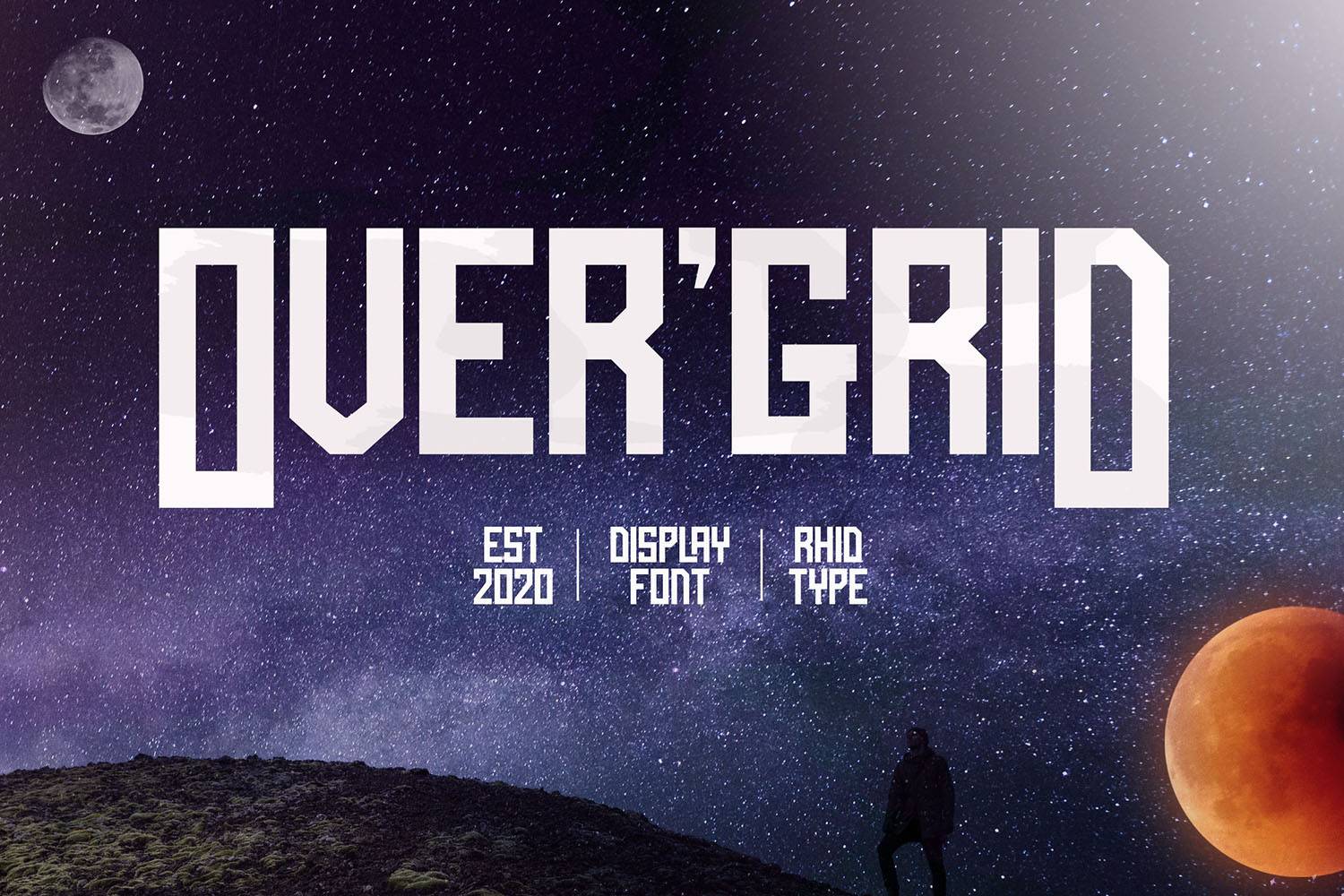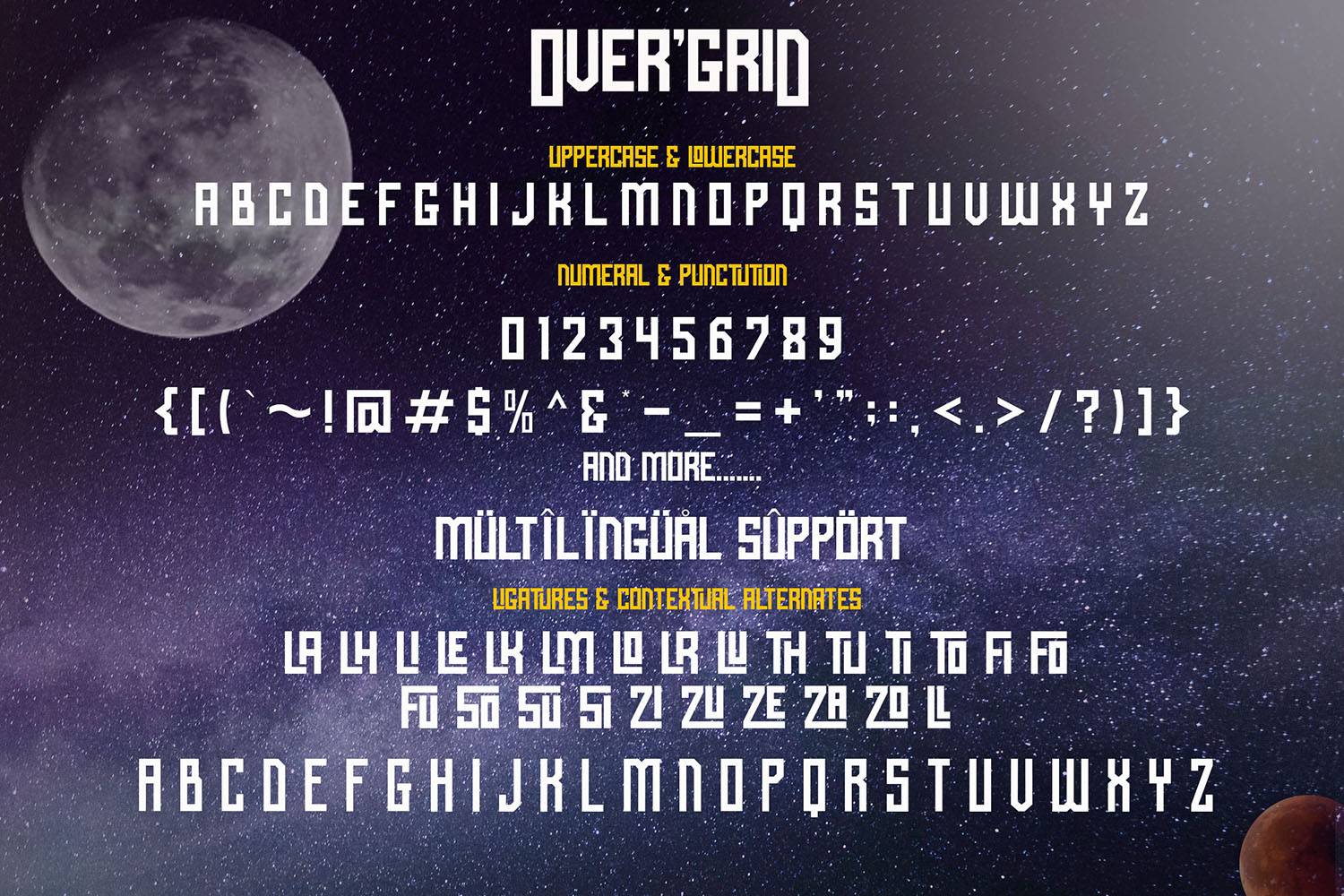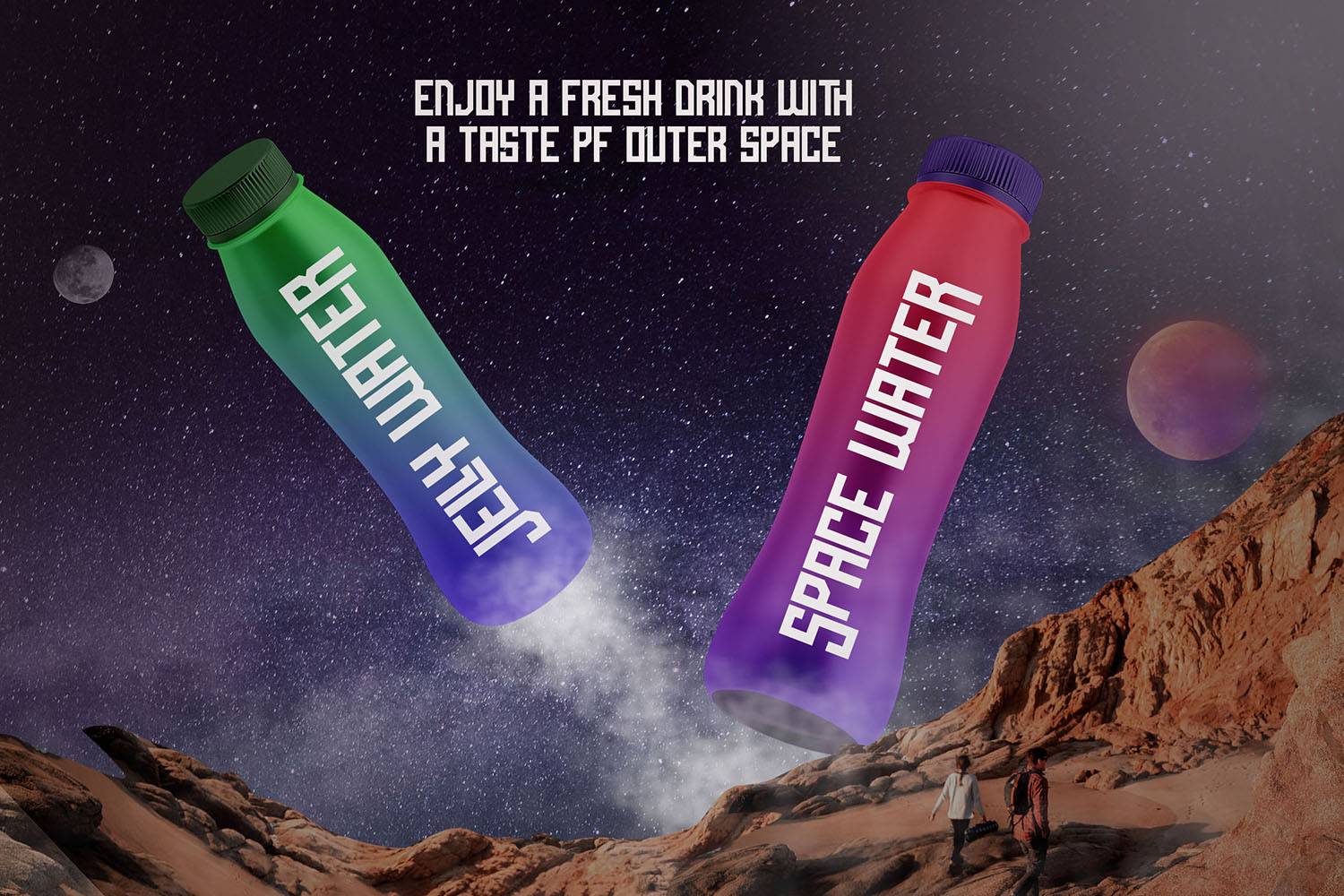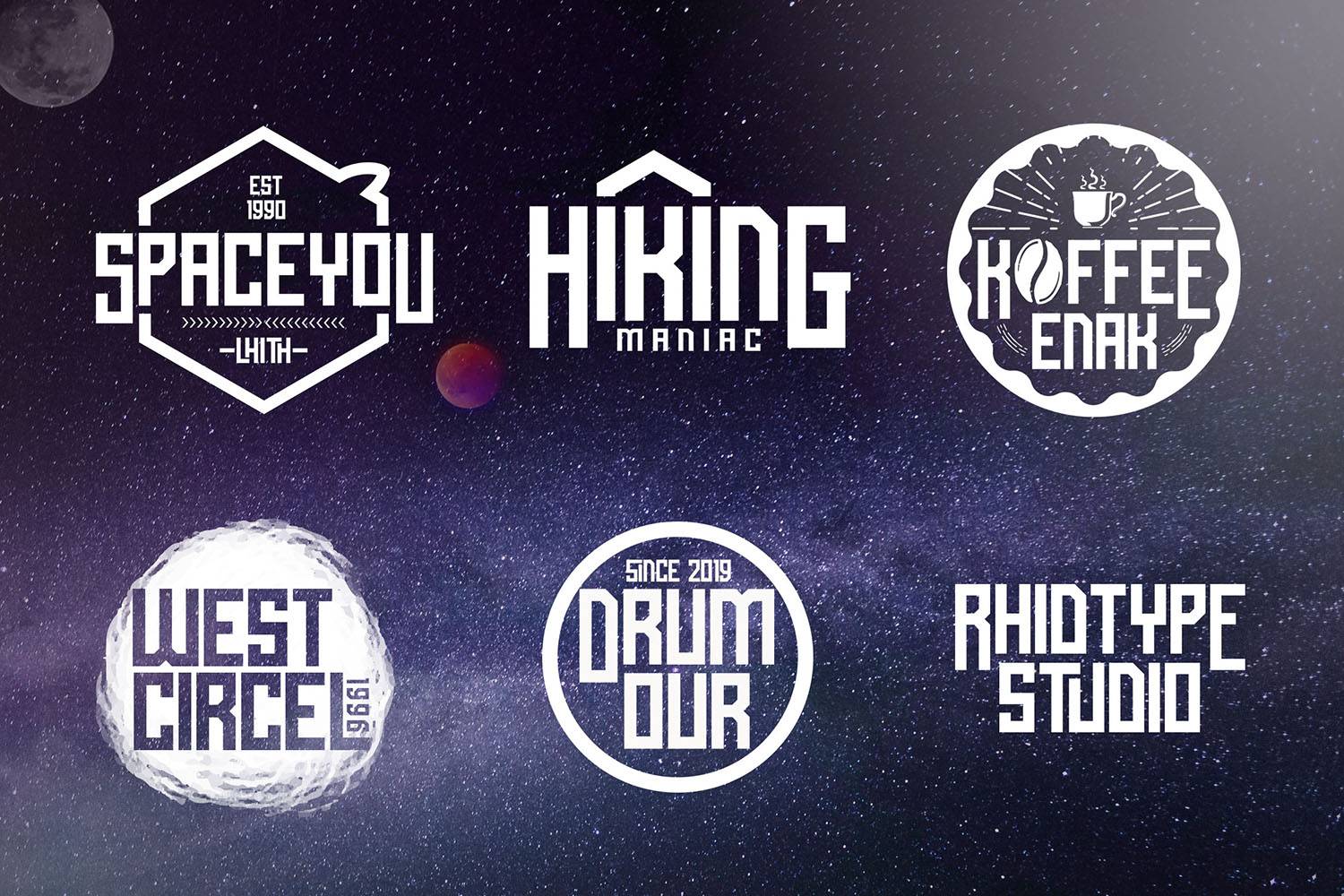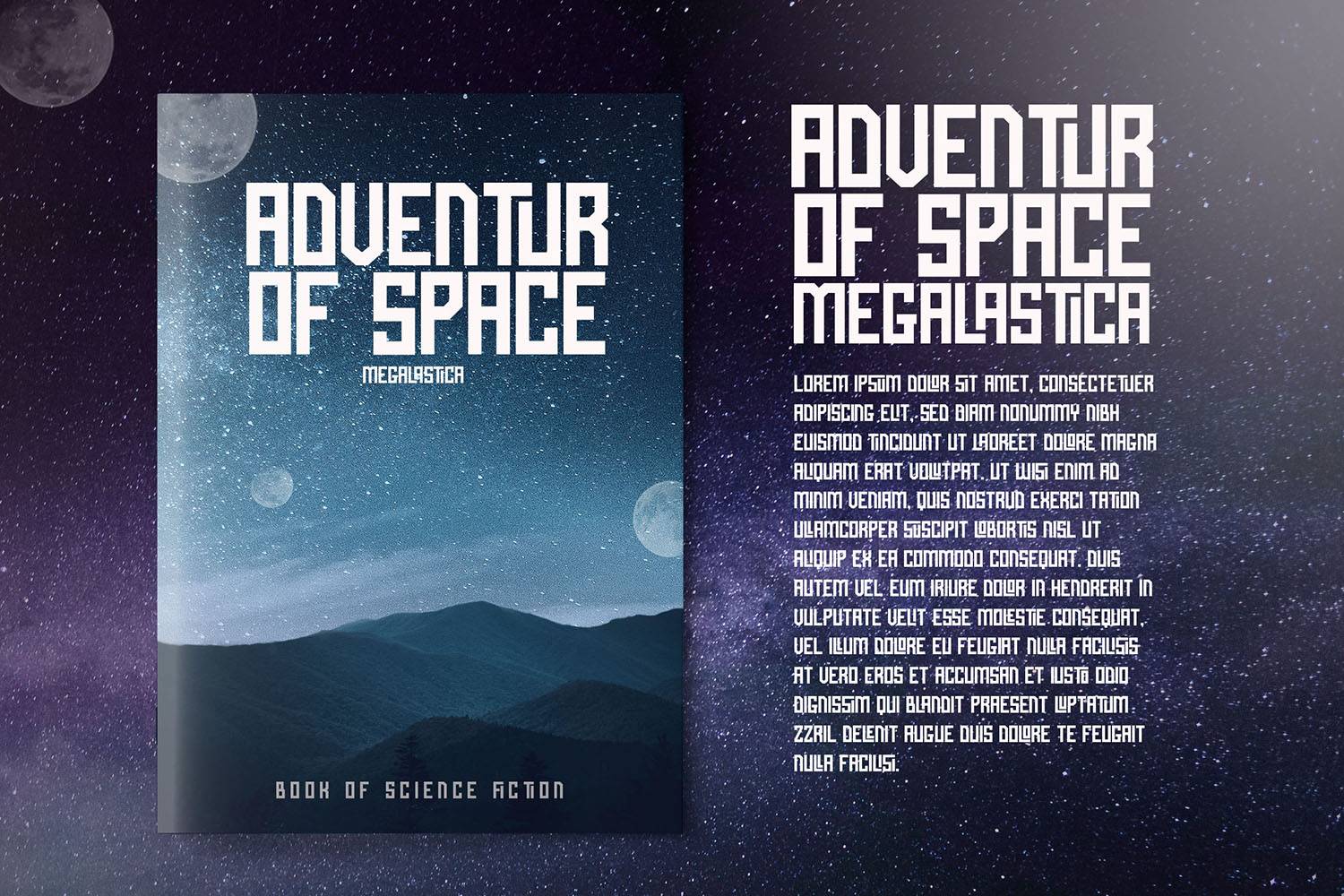
Over’grid is a bold, condensed sans serif font characterized by sharp, geometric edges and a strong grid-like structure that conveys a modern, industrial feel. Its uniform stroke weight and uppercase-only letterforms give it a sturdy, no-nonsense appearance, making it ideal for striking headlines, logos, and designs that require a futuristic or technical vibe. This font works best where bold impact and readability in tight spaces are needed, such as branding, posters, and digital interfaces.
Over’grid Font
About Over’grid Font
| Font family | Over’grid Font |
| Release date | 2020-12-08 |
| Designer | REPI HILMANA |
| Trademark | RHIDTYPE |